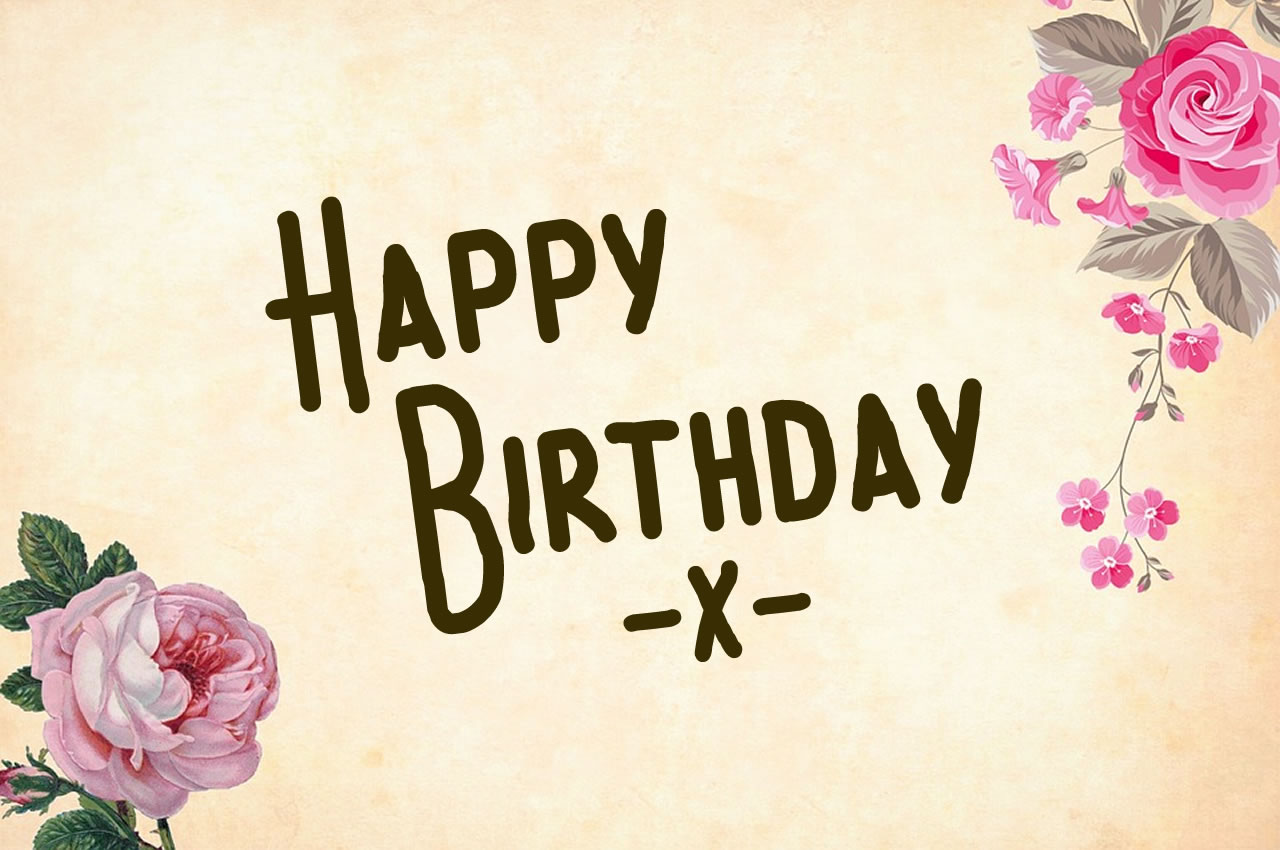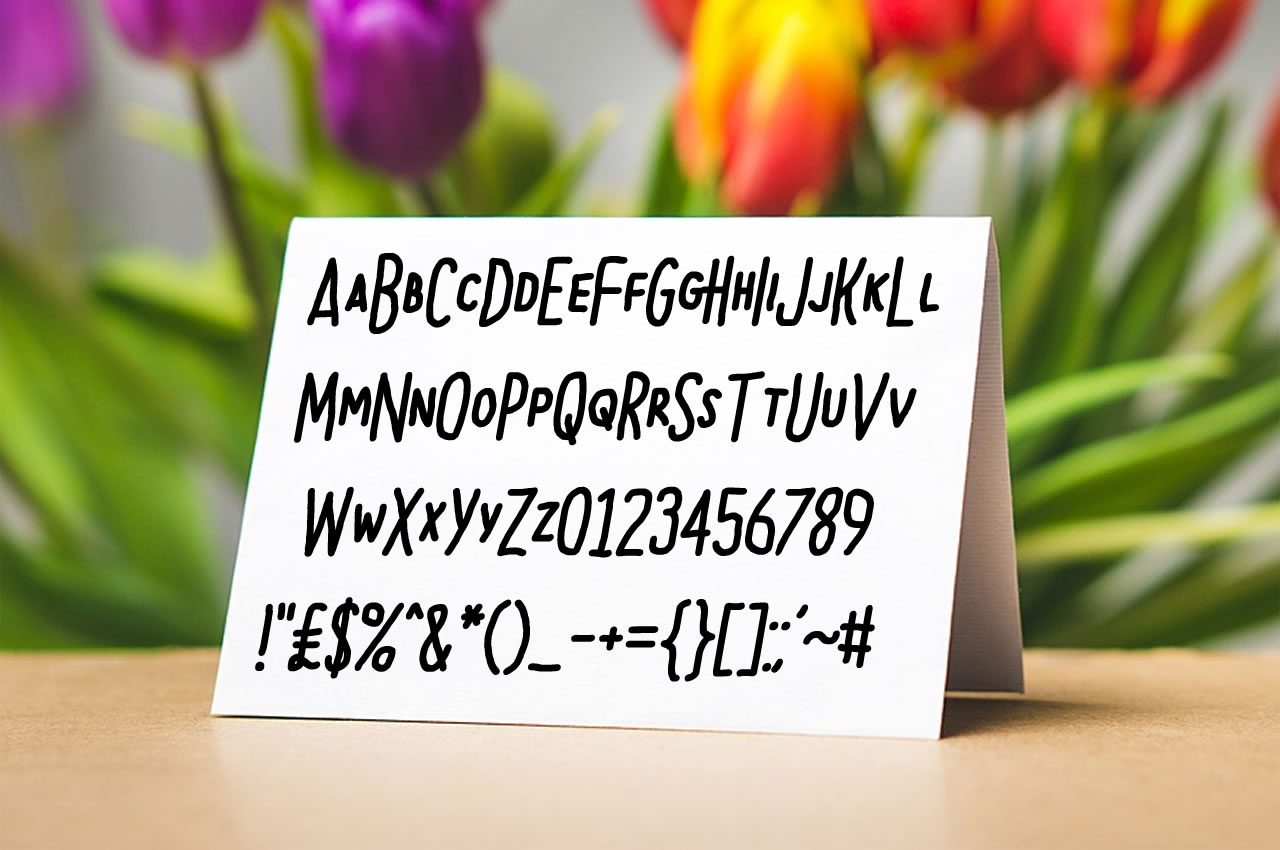
Beautiful Heartbeat Font
About Beautiful Heartbeat Font
Add a cute touch to your social media promotions, greetings cards and other artwork with Beautiful Heartbeat, a stunning handwritten font.